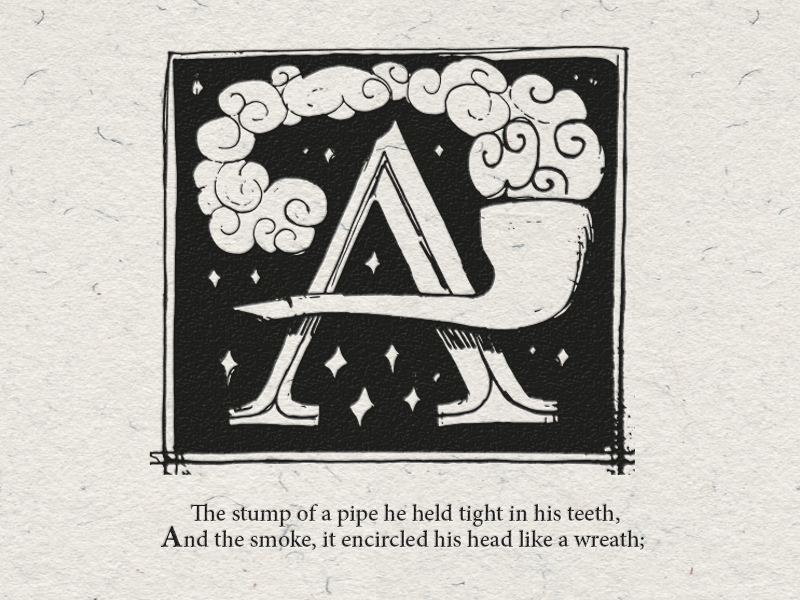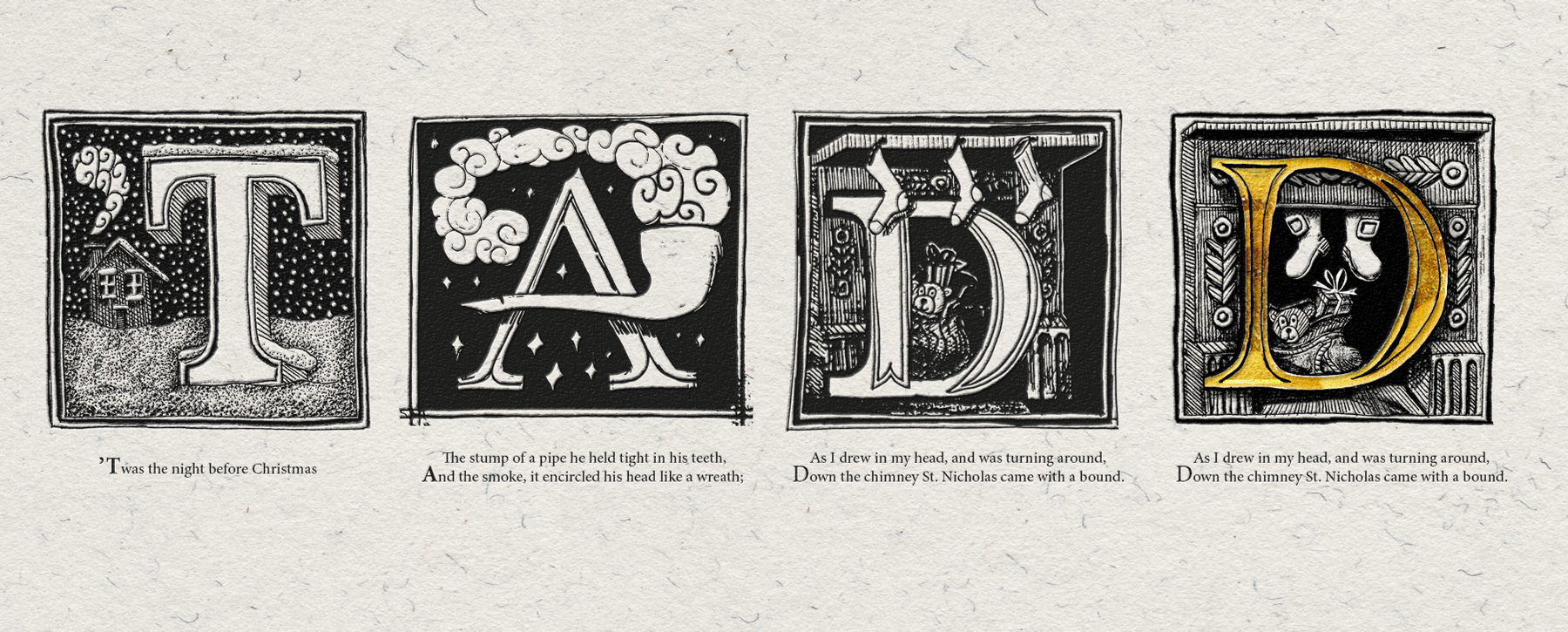
Type & Lettering Advent Calendar: Day 8
I co-organised an Advent Calendar for my blog, Type Worship, inviting some of the world’s leading type and lettering designers to submit a custom number for the countdown to Christmas.My co-organiser, Ryan Gillard, assigned me No. 8 as my contribution. I decided to create a modern interpretation of an illuminated initial, aiming for a warm, opulent feel, . I chose the well-know poem A Visit from St. Nicholas, which has inspired much of the festive imagery traditionally associated with Christmas.
Specifically though, I chose the poem because it introduces Santa’s eight reindeer. The illustrated number acts as a dropcap within the poem, demonstrating that decorated type can emphasise the story as well as any traditional image. I’ve taken a number of liberties with grammatical and typographic conventions but strived to maintain the readability of the text. Included are a few sketches for secondary drops caps that I was originally going to sprinkle around the 8 but in the end they seemed unnecessary.